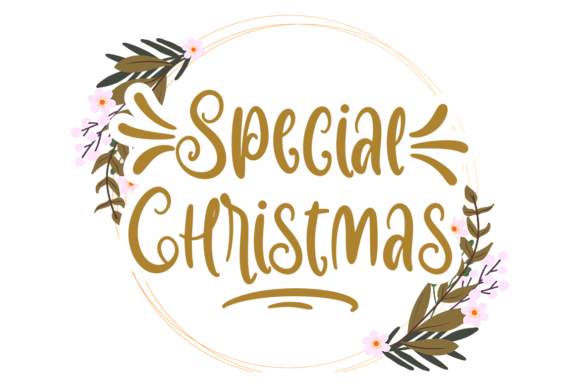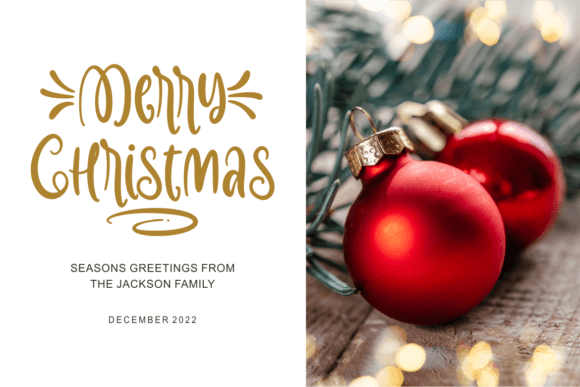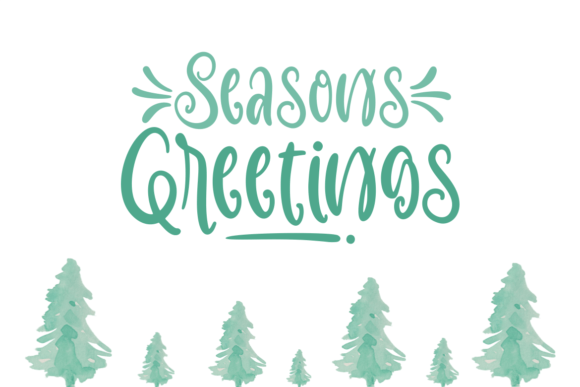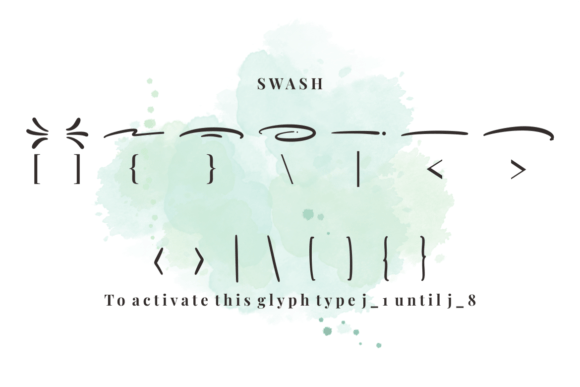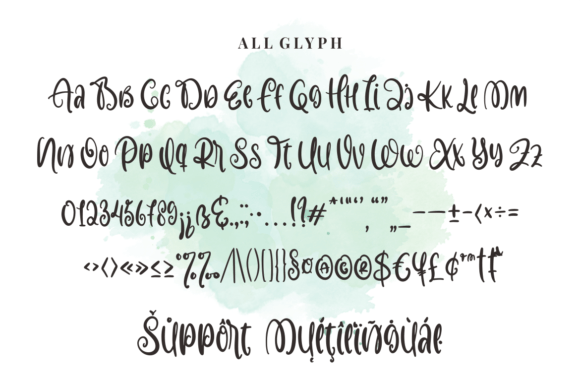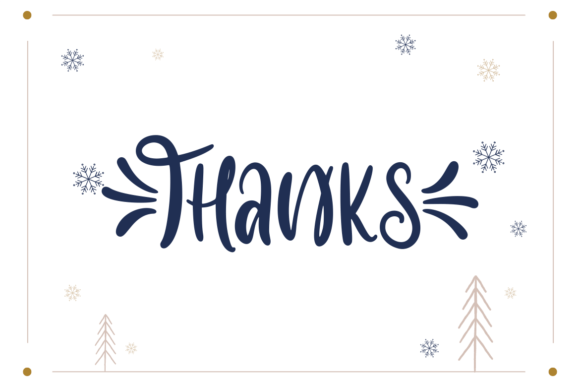
Unwrapping the Magic of Giora Whisper Font
There’s something magical about the first moments of creative brainstorming – the spark of an idea, the flutter of excitement, and the thrill of bringing it to life. For designers, these moments are what make the craft so rewarding. And for those who love the festive season, the search for the perfect font to capture the essence of Christmas is a top priority. Enter the enchanting Giora Whisper Font, a playful handwritten font that’s sure to add a romantic and festive touch to any project.
Designed to bring joy and whimsy to your creations, Giora Whisper Font is the perfect companion for greeting cards, headlines, and a wide range of festive applications. Its versatility makes it a valuable asset for designers, offering endless possibilities for creative expression. Whether you’re crafting holiday cards or designing festive marketing materials, Giora Whisper Font is sure to bring a smile to your face and a touch of magic to your work.
Giora Whisper Font Key Features
- Font Family: Giora Whisper
- Size: Available in 7 font sizes, ranging from 12 to 72 points
- Resolution: Supports high-resolution displays, ideal for print and digital use
- Unique Characteristics: Hand-drawn, elegant script font with a soft, whispery feel, perfect for invitations, wedding stationery, and other special occasions
- Font Style: Script, Italic, Bold, Bold Italic, Regular
Giora Whisper Font Review
I’ve had the chance to work with Giora Whisper Font and I must say it’s a unique addition to any design project. ✨ The subtle nuances in letterforms and the gentle touch of the designer have created a font that’s both elegant and refined. The soft, whispery texture is perfect for creating a sense of sophistication and understated luxury.
- ✨ Elegant and refined letterforms
- ✨ Soft, whispery texture that adds a sense of sophistication
- ✨ Perfect for creating a sense of understated luxury
- ⚠️ Limited character set – may not be suitable for large blocks of text
- ⚠️ Not ideal for display use, as it can get lost in larger typography
- ⚠️ May not be suitable for use in body text, as it can be difficult to read
Overall, I think Giora Whisper Font is a great choice for designers looking to add a touch of elegance and sophistication to their projects. While it may have some limitations, it’s perfect for creating a sense of refined luxury and is sure to impress.
Tips for Getting the Most Out of Giora Whisper
To get the most out of Giora Whisper, use it sparingly in bold or italic styles to create visual interest. Pair it with other fonts to create a unique typographic combination. Experiment with different font sizes and colors to find the perfect balance.
The Giora Whisper Font is ideal for creating elegant and sophisticated designs, such as:
- Luxury branding and marketing materials
- High-end print and digital publications